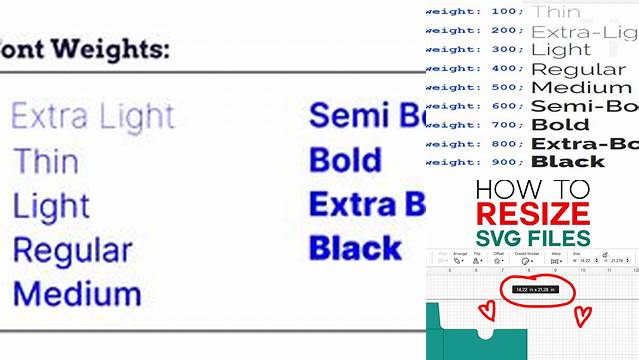
How To Add Font Weight To Your SVG: A Complete Guide
Hey everyone! Let's dive into the awesome world of SVGs and figure out how to add some serious font weight to them. It's a common question, and the answer isn't always super straightforward. But don't worry, we'll break it down step-by-step so you can make your SVG text pop. We'll cover everything from the basics of what SVG is, the different ways you can define font weight, and some cool tricks to make your text look just the way you want. Let's get started and make those SVGs shine!
1. Understanding SVG and Its Capabilities
Alright, first things first: what is SVG? SVG stands for Scalable Vector Graphics. Guys, it's a super cool format for creating graphics that scale up or down without losing any quality. Think of it like this: instead of pixels that get blurry when you zoom in, SVG uses mathematical descriptions to draw shapes, lines, and text. This makes SVGs perfect for logos, icons, and any graphics that need to look crisp on any screen size. When you're adding font weight to your SVG, you're essentially telling the browser how bold or light you want your text to appear. This is an important aspect in web design to make it look great and readable. The ability of SVG to scale is one of its most appealing traits, making it versatile for a range of uses.
With SVG, you can create intricate visuals that are fully responsive and customizable. The flexibility of SVG in web design is unmatched. Imagine designing a complex icon or logo that looks great on any device. SVG handles this with ease. You can modify the image using code without losing any image quality. This allows you to make changes quickly, keeping your projects up-to-date. Another benefit is the small file sizes SVG offers. Because the image is described with code instead of pixels, the file is small. This helps to improve the loading speed of your websites and apps. This is especially important in today's world. The accessibility of SVG is another point to consider. SVG graphics can be indexed by search engines, which can improve the SEO of your website. You can also add attributes like 'aria-label' to improve accessibility for users with disabilities. With SVG, you're not just creating visuals; you're creating an experience.
2. The Importance of Font Weight in Design
Now, let's talk about why font weight matters so much in design. Font weight, or the boldness of your text, is a powerful tool. It helps to create visual hierarchy and guide the reader's eye. For example, you might use a strong font weight for headings to make them stand out, and a lighter weight for body text to make it easier to read. It's all about balance, guys. It's like choosing the right outfit. You want to make sure your text is readable and appealing. With the right font weight, you can emphasize important information, create a sense of visual flow, and improve the overall user experience.
Think about a website with all the text in the same weight. It's not going to be easy on the eyes, right? You'll struggle to find the information you need. Good font weight usage makes your design more intuitive. A website that uses various font weights draws the user's attention to key parts of the page. It makes the user understand the most essential parts of the content quickly. The correct font weight choice makes your design look professional and polished. It shows that you pay attention to detail, which can enhance your brand's credibility. You can make your design more attractive and user-friendly. The right font weights ensure that your design is clear and easy to navigate. This has a positive impact on the user experience. Using a variety of font weights helps to separate the different elements and add visual variety to your design. This allows for a more attractive overall experience. You also need to consider the readability of your fonts. It is a critical factor to make your content accessible to all readers.
3. Methods for Adding Font Weight to SVG Text
So, how do we actually add font weight to text in an SVG? There are a couple of main methods, guys. First, there's the font-weight
CSS property, and second, you can use the font-family
attribute to select a font with a specific weight. Let's break down both:
3.1. Using the CSS font-weight
Property
The font-weight
property is the most common and straightforward way to control font weight in SVG. You can apply it directly to the <text>
element or to a class that you apply to the <text>
element. To use it, you'll typically embed your SVG code in an HTML file and use CSS to style it. For example, if you have an SVG like this: <text x="10" y="20" fill="black">Hello</text>
, you can add font weight using CSS like this: text { font-weight: bold; }
or .my-text { font-weight: 700; }
. This will make all the text elements bold. It's that simple, guys! The numbers you use for font-weight
represent the boldness of your text. The standard options are normal
(which is usually the same as 400), bold
(usually 700), lighter
, and bolder
. You can also use numeric values like 100, 200, 300, and so on, up to 900, where 100 is the thinnest and 900 is the strongest. This gives you fine-grained control over the weight. When you use this property, you can easily modify the style of your text. You can change your text's appearance without changing the SVG code itself. This allows for easy updates and makes your design more flexible. For your designs, the use of the font-weight
property keeps things consistent.
3.2. Utilizing the font-family
Attribute with Weight Variations
Another way to control font weight is by using the font-family
attribute. This method involves selecting a font that already has different weight variations. For instance, many font families, like Open Sans or Roboto, come in various weights such as regular, bold, and italic. You can use the font-family
attribute. Guys, you need to make sure the font is correctly installed on the system. This can be done by linking to a font online (Google Fonts, for example), or installing it on your computer. Once the font is set up, you can choose a different weight by specifying the font-family and the corresponding weight in your CSS. If your SVG text uses font-family: 'Roboto'
, and you want to use the bold version, make sure you've loaded the bold version of Roboto. Then, in your CSS, you can set font-weight: bold;
. This will tell the browser to use the bold version of the font you selected. This method is great if you want to make use of the specific weight variations of your font.
It provides a lot of flexibility and control over the design of your text. When you're choosing your fonts, guys, you need to make sure you're downloading the right font with all the weight variants. Then, you can use the font-family
attribute. You can customize your SVG designs by experimenting with different font weights. You have more control over your typography with the use of this approach. It gives a consistent and harmonious look across your designs. If you are designing a large project, it is essential to provide consistency throughout all the documents. This approach is helpful when you work in different projects.
4. Troubleshooting Font Weight Issues in SVG
Sometimes, you might run into issues where your font weight doesn't seem to be working as expected. Don't worry, guys, it happens! Here's how to troubleshoot some common problems:
4.1. Ensuring Font Availability
The most common issue is that the font weight you're trying to use isn't available. Make sure the font you've chosen has a bold or strong weight variant. If you're using a custom font, make sure that the correct font files are included or linked in your project. Browsers rely on the font files to render the correct weight. If the font file doesn't include a bold version, the browser will typically fall back to a default font or a simulated bold. In this case, the 'bold' might not be the right font weight. So, always check your fonts. Check your CSS and HTML code to ensure everything is linked correctly. If you're using Google Fonts, double-check that you've included the correct weight variants in your <link>
tag. Also, make sure your font is being applied to the <text>
element in your SVG. Check for any typos or errors in your CSS or SVG code. Also, make sure your font file is correctly referenced. Sometimes, the font is not accessible on the web.
4.2. Checking CSS Specificity
CSS specificity can also cause issues. If another CSS rule is overriding your font-weight
declaration, your text might not appear as you want. The browser prioritizes the style that is more specific. For example, if you have a style that uses an ID selector (#myText { font-weight: normal; }
) and another that uses a class selector (.myText { font-weight: bold; }
), the ID selector will usually take precedence. Make sure your font-weight
rule is specific enough to override any conflicting styles. You can often fix this by adjusting the specificity of your CSS rules. One approach is to use the !important
declaration. However, be careful with this. Sometimes, you have to use it as a last resort. Another solution is to make your selectors more specific. Instead of applying the style to a general class, you can target a particular element within the class. This can help to ensure that your font weight is applied correctly.
4.3. Browser Compatibility Considerations
Browser compatibility is also important. Older browsers might not fully support all font weight values or font variations. While modern browsers are generally good at handling font weights, you should test your SVG in different browsers to ensure consistency. If you run into issues, you might need to provide a fallback solution. This could include specifying a different font with good support in older browsers or using a simpler font weight value. Testing across browsers helps you to identify and fix any problems. Consider using a CSS reset to make sure that all the browsers render things the same way. This can help you find differences across all browsers. There are many tools available online. You can use these tools to test your web projects across all platforms. Ensure that your design looks good across all browsers.
5. Advanced Techniques for Font Weight Manipulation
Now, let's level up our SVG font weight game with some advanced techniques!
5.1. Using SVG Filters for Subtle Effects
You can use SVG filters to create some cool effects that enhance the appearance of your text. You can apply a blur filter to give your text a slight glow. Or, use a drop shadow filter to add depth. To use a filter, you first define the filter in the <defs>
section of your SVG. Then, apply it to your text element using the filter
attribute. You can create various text effects with filters. It's a great way to add depth and texture to your SVG text. If you are using a blur filter, you can add a sense of movement. These filters give your text a 3D look. By using filters, you can take your SVG designs to the next level. You can use many online resources to discover how to use SVG filters to add text effects. This can make your content stand out. It helps to get the reader's attention.
5.2. Animating Font Weight for Dynamic Designs
Guys, you can even animate font weight to create dynamic and interactive designs! Using CSS animations or transitions, you can gradually change the font weight of your text. This is a great way to grab attention or provide visual feedback. For instance, you can make text bolder on hover or create a subtle animation when the page loads. To do this, you define the animation in your CSS, specifying the start and end values for font-weight
. Then, apply the animation to your text element. This lets you create engaging and interactive elements. You can create an effect where text changes on user interaction. Or, you can create an effect that triggers on events. Keep in mind that this approach can make your design more engaging. Experiment with different animation speeds and easing functions. These are useful to get a smooth visual effect.
5.3. Combining Font Weight with Other Text Properties
You can combine font weight with other text properties like text-transform
, letter-spacing
, and line-height
to achieve complex and stylish text effects. Experimenting with these properties is a great way to add more personality to your SVG text. For example, you might use text-transform: uppercase;
to make your text all caps, or letter-spacing
to adjust the space between the letters. Use line-height
to control the space between lines of text. These combinations help you fine-tune the appearance of your text. This will help you match your brand's aesthetic. By combining different properties, you can create a more visually appealing and cohesive design.
6. Best Practices for Utilizing Font Weight in SVG
Let's talk about some best practices to keep in mind when you're working with font weight in SVG.
6.1. Choosing the Right Font Weights for Readability
Guys, readability is key! When you're choosing font weights, make sure that your text remains easy to read. The weight should be appropriate for the content and the context. For body text, use a lighter weight that's easy on the eyes. For headings, use a bolder weight to draw attention. This will help to improve the readability of your content. It helps the reader to understand your content quickly. You need to ensure a good contrast between text and background. This way, the text is readable in different scenarios. Consider the overall design and purpose of your SVG.
6.2. Ensuring Consistent Font Weight Across Your Design
Consistency is another important aspect. You should use the same font weight for the same types of text throughout your design. If you use a bold font weight for headings, make sure all your headings are bold. This provides a clear visual hierarchy. When you create consistent weight patterns, your design looks professional and easy to follow. Maintaining consistency is crucial in branding. Your audience will recognize your design patterns. For users, it will be easier to navigate your content. Having a consistent style makes it easier for your audience to understand the message you are trying to share. This helps the overall user experience.
6.3. Optimizing SVG for Performance
Finally, keep performance in mind. Large or complex SVGs can impact the loading speed of your website. You can optimize your SVG files to improve their performance. One way to do this is to reduce the number of elements in your SVG. Try to simplify complex shapes. Avoid excessive use of effects or filters. Also, use the smallest possible file size for your fonts. Use tools to compress your SVG files. These tools can remove any unnecessary data and optimize the code. Efficient SVGs lead to faster loading times. This ensures a better user experience.
7. Practical Examples and Code Snippets
Let's get practical with some examples and code snippets to help you implement these techniques!
7.1. Basic SVG Text with Font Weight
Here's a basic example of an SVG text element with font weight:
<svg width="200" height="100">
<text x="10" y="50" font-family="Arial" font-weight="bold" font-size="20">Hello, SVG!</text>
</svg>
In this code, we're using the font-weight="bold"
attribute directly on the <text>
element. This will make the text appear bold. We can also use a CSS class to apply font weight:
<svg width="200" height="100">
<style>
.my-text {
font-family: Arial;
font-weight: bold;
font-size: 20px;
}
</style>
<text x="10" y="50" class="my-text">Hello, SVG!</text>
</svg>
Here, we define a CSS class .my-text
that includes the font-weight: bold;
style. Then, we apply that class to the <text>
element using the class
attribute. Both methods produce the same result. They make your text bold. Using CSS classes allows for better organization and reusability. You can easily change the style of all text elements. It's an easy and efficient way to control your text style.
7.2. Using CSS to Control Font Weight
Here's an example of controlling font weight using CSS:
<svg width="200" height="100">
<style>
text {
font-family: "Times New Roman";
font-weight: normal;
font-size: 16px;
}
.heading {
font-weight: bold;
font-size: 24px;
}
</style>
<text x="10" y="30" class="heading">Main Heading</text>
<text x="10" y="60">Body text</text>
</svg>
In this example, we use the text
selector to set the default font weight to normal
. We then use a class .heading
to make the main heading bold. This example shows how to create a visual hierarchy by using different font weights. It will help to make your designs look polished. Using CSS makes it easy to adjust styles. It's an essential part of web design.
7.3. Advanced Example: Animated Font Weight
Here's a simple example of animating font weight with CSS:
<svg width="200" height="100">
<style>
.animated-text {
font-family: sans-serif;
font-size: 20px;
animation: fontWeightAnimation 2s infinite alternate;
}
@keyframes fontWeightAnimation {
0% { font-weight: normal; }
100% { font-weight: bold; }
}
</style>
<text x="10" y="50" class="animated-text">Animated Text</text>
</svg>
In this code, we create an animation that alternates between normal and bold font weight. This will make the text animate back and forth. This adds a dynamic element to your SVG design. You can easily adjust the animation. You can change the duration, the animation, and the effect. This gives you a lot of flexibility. This will help you create an engaging design.
8. Conclusion
And that's a wrap, guys! You now have a solid understanding of how to add font weight to your SVG text. We've covered the basics, the different methods, and even some advanced techniques. Experiment with these methods, and don't be afraid to get creative. The more you practice, the better you'll get at making your SVG text look amazing. Keep practicing, and you'll be creating stunning visuals in no time. Remember, the key is to experiment. Happy designing!
9. Frequently Asked Questions
Here are some frequently asked questions about adding font weight to SVG:
9.1. Can I use any font with SVG?
Yes, you can use most fonts with SVG. However, you need to make sure the font is available to the browser. This can be done by linking to a web font (like Google Fonts) or by ensuring the font is installed on the user's system. If the font isn't available, the browser might render a fallback font.
9.2. Why is my font weight not working?
If your font weight isn't working, check the following: Ensure that the font you're using has the weight variation you want (e.g., bold, regular, etc.). Double-check your CSS to make sure there are no conflicting styles. Also, confirm that your font files are loaded correctly and that there are no typos in your code.
9.3. How do I animate font weight in SVG?
You can animate font weight using CSS animations or transitions. Define a CSS animation that changes the font-weight
property over time. Apply this animation to your text element. Remember to test your animations across different browsers to ensure they work correctly.
9.4. Is there a difference between font-weight
and font-style
?
Yes, there is a difference. font-weight
controls the boldness of the text, while font-style
controls the style (e.g., italic, normal). These are separate properties that affect the appearance of your text. You can use both properties to customize the look of your SVG text.
9.5. How do I optimize SVG files for performance?
To optimize SVG files, reduce the number of elements, simplify complex shapes, and avoid excessive effects or filters. Also, compress your SVG files using tools like SVGO to remove unnecessary data and reduce file size. This helps to improve the loading speed of your web pages.
10. Further Resources
Here are some resources to help you learn more about SVG and font weight:
10.1. MDN Web Docs on SVG
MDN Web Docs is a great resource for learning about all things web development, including SVG. It provides comprehensive documentation on SVG elements, attributes, and properties. You can find tutorials, examples, and browser compatibility information on the MDN Web Docs website.
10.2. W3Schools SVG Tutorial
W3Schools is another excellent resource. It offers a beginner-friendly introduction to SVG, with tutorials, examples, and exercises. You can learn the basics of SVG and how to use it in your web projects. It also provides a good overview of the different SVG elements and attributes.
10.3. Google Fonts
Google Fonts is a free service that provides a wide variety of fonts. You can easily include these fonts in your web projects. This resource is a great place to find different font weights. You can preview the fonts and select the ones that best suit your design. It is easy to use. You can get started right away.
11. Wrapping Up